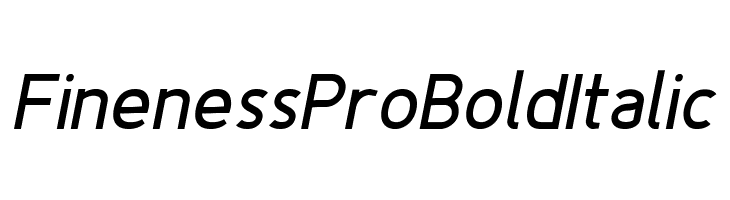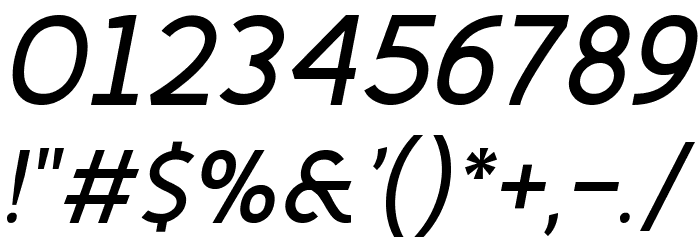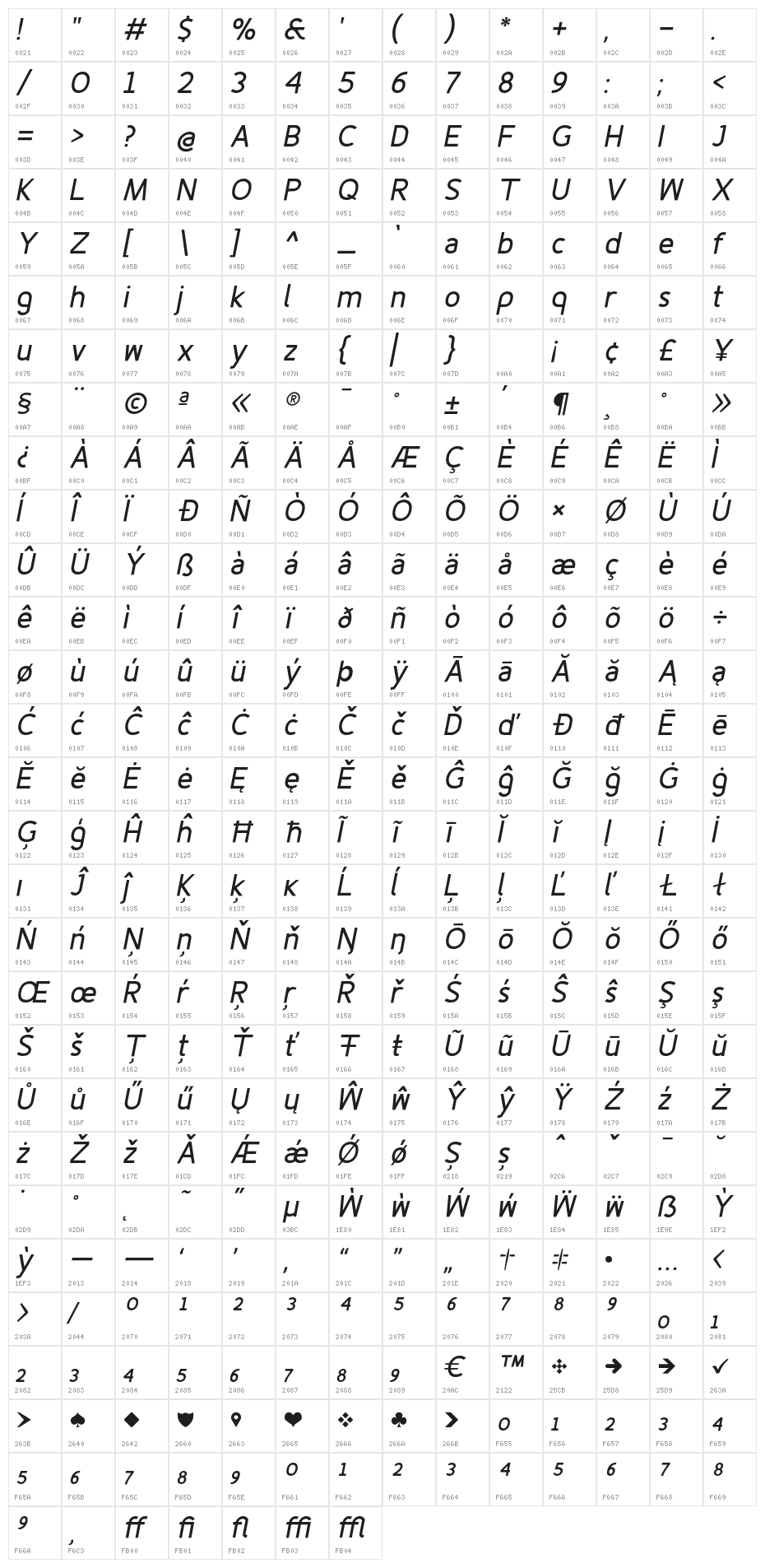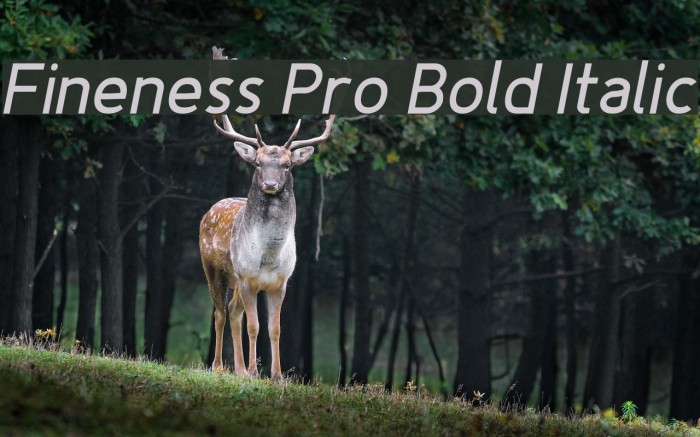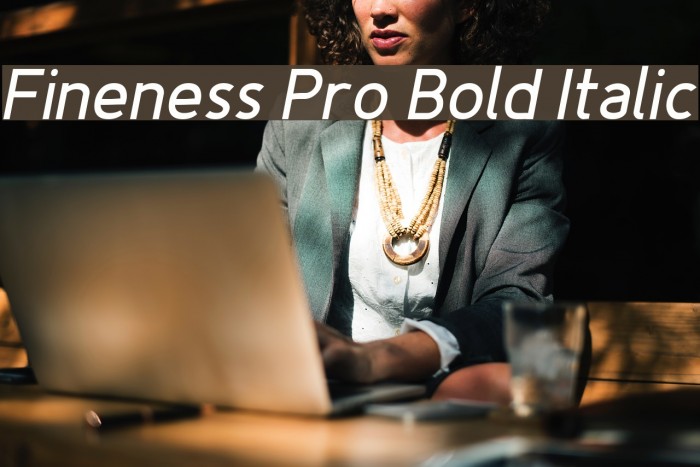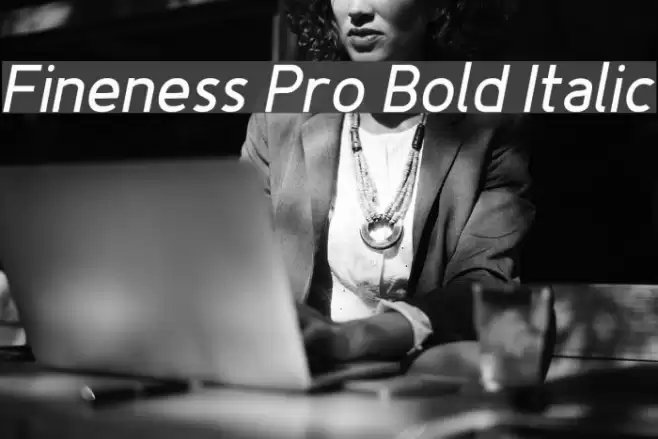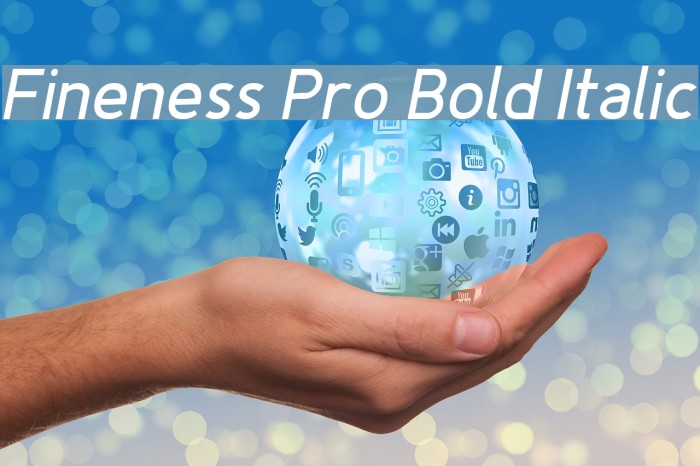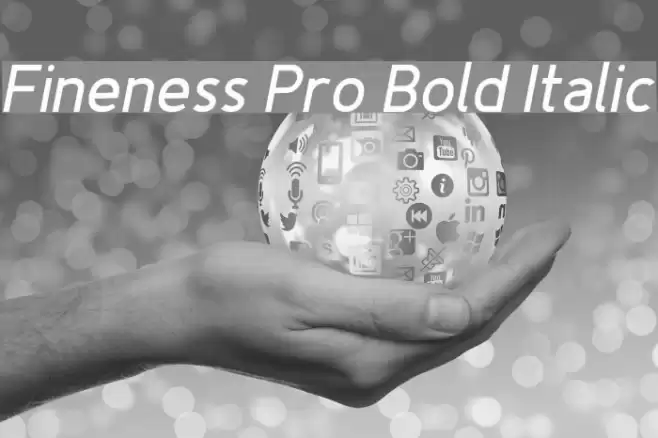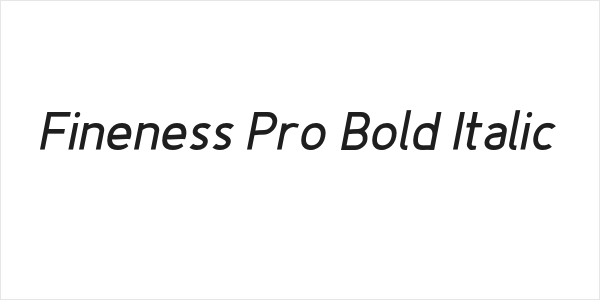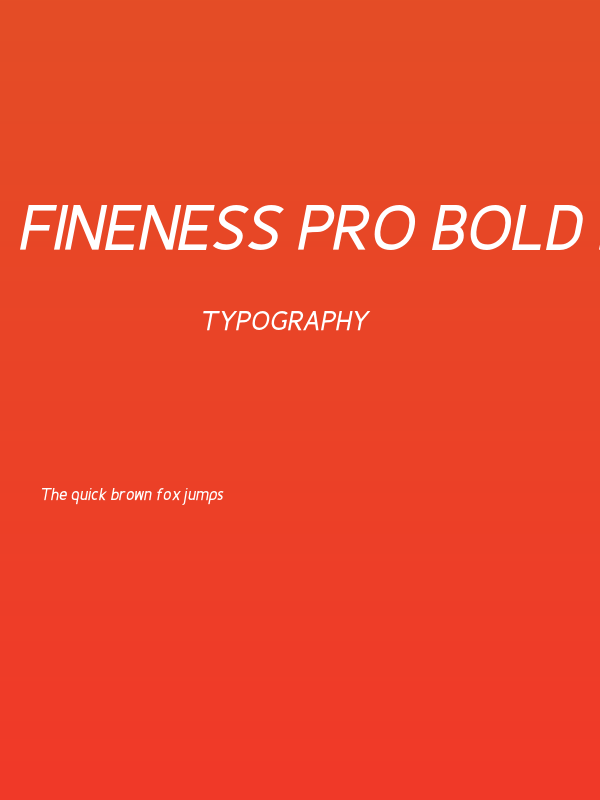
Fineness Pro Bold Italic Font
Fineness Pro Bold Italic Description
This font exhibits a sleek and modern design with a bold and italicized style. The characters are slightly slanted, adding a dynamic and forward-moving feel. The strokes are consistent and smooth, providing a clean and professional appearance. The uppercase letters are well-proportioned, while the lowercase letters maintain a harmonious balance. The numerals are clear and easy to read, making them suitable for various applications. Special characters are distinct and well-integrated into the overall design, enhancing the font's versatility.
| Proposed Projects | Ideal for branding, advertising, and editorial design projects that require a modern and professional look. |